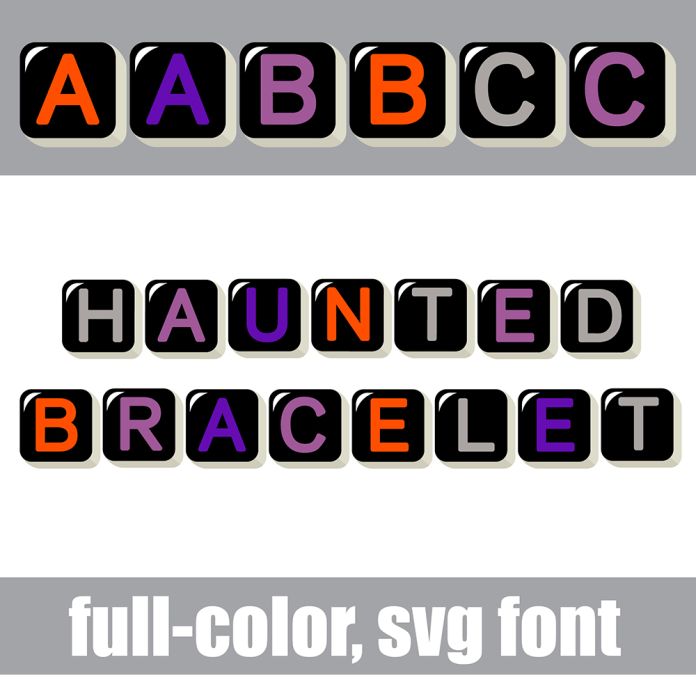
This full-color font features a friendship bead alphabet in a Halloween color palette. There is an alt version you can access through your system's character map that contains additional colors of all the letters. This font works best for titles, displays, posters and more. Please note color fonts will show as black in non compatible programs. This font type is compatible with Silhouette Studio.